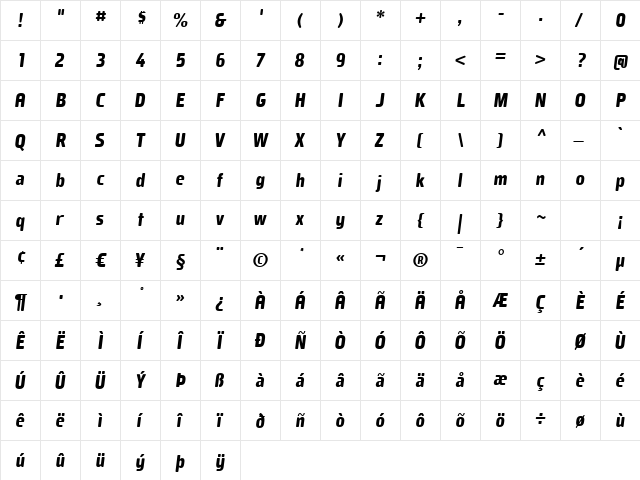
Mustardo Oblique Font Preview
Mustardo Oblique
Design Context for Mustardo Typeface
Mustardo offers clean, dependable letterforms without strong stylistic allegiance, making it a practical choice for designers who need flexibility. The dynamic lean of this cut emphasises speed and emphasis in any layout.
Pro Tip: Try Mustardo for annotation and caption copy alongside an upright companion — the contrast in angle creates a dynamic but ordered typographic system.